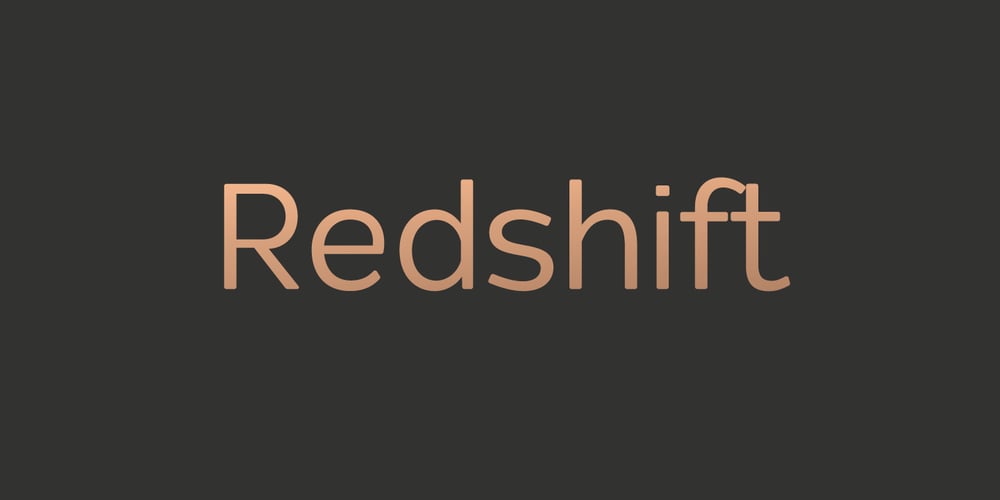
Redshift
Redshift font
Redshift Font Family was designed by Dathan Boardman and published by Rocket Type. Redshift contains 19 styles and family package options. Redshift is sans with 12 upright weights and 12 oblique weights. Its a soft edged, spaced out offering from Rocket Type. It supports most extended Latin languages including English, Spanish, French, Italian, German, Polish and Portuguese. The name redshift means the displacement of spectral lines toward longer wavelengths (the red end of the spectrum) in radiation from distant galaxies and celestial objects. The original concept behind the font was that I wanted to create a massive heavy sans which would give the sense of tranquility within the user not unlike watching an object float through space. Redshift was designed by Dathan Boardman during 2016. Strongly rooted in the tradition of other notable geometric sans faces however much attention was paid to create a soothing experience for reading both large and small bodies of text. Each letter was painstakingly modified for optimal readability and warmth. Redshift was designed with the intent to create the ultimate bold header font. From there I wanted create the lighter weights to be readable when set within large bodies of text. Redshift works great for body headers & text as well as for logo design. It looks great juxtaposed with any number of other Rocket Type Fonts.